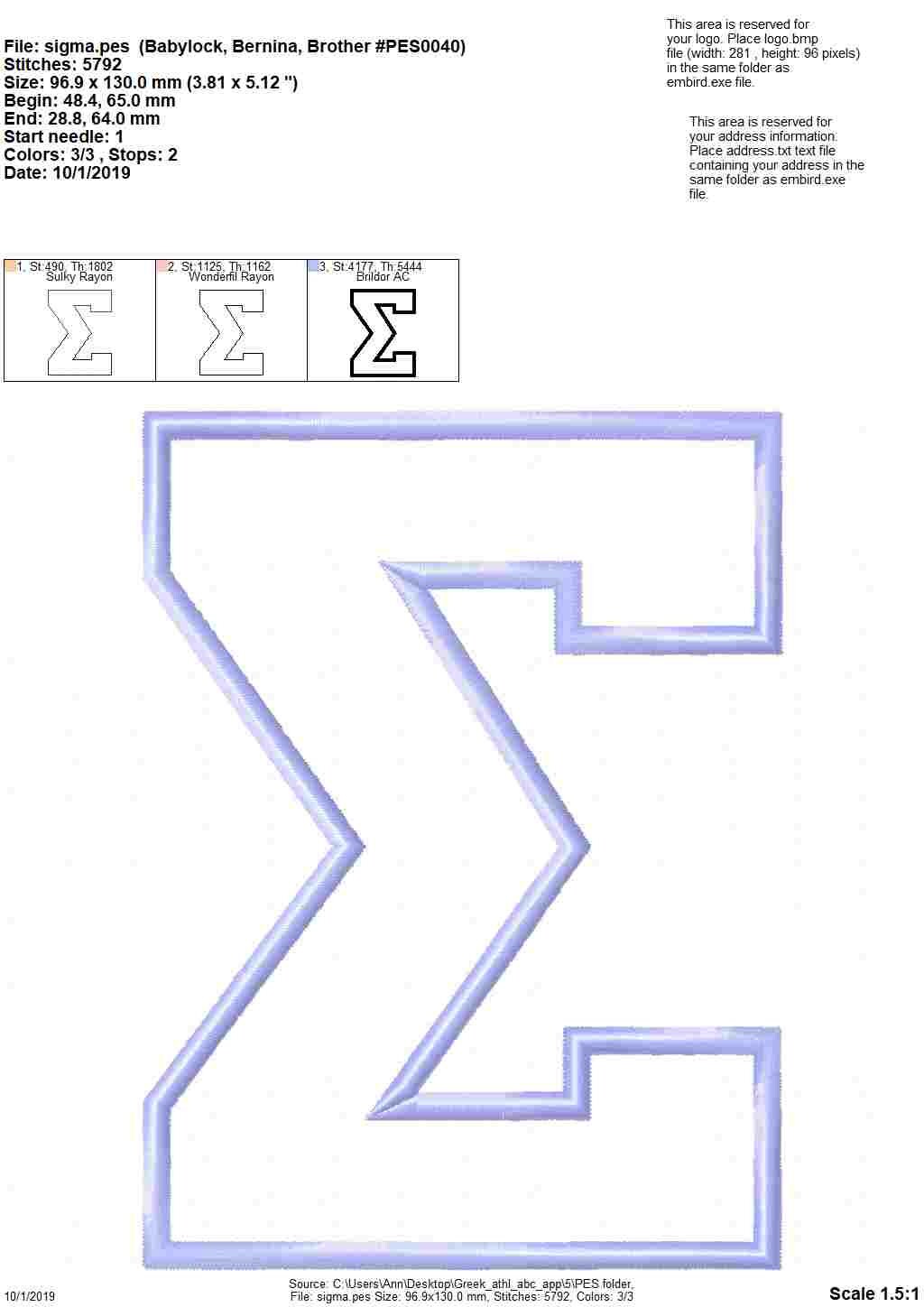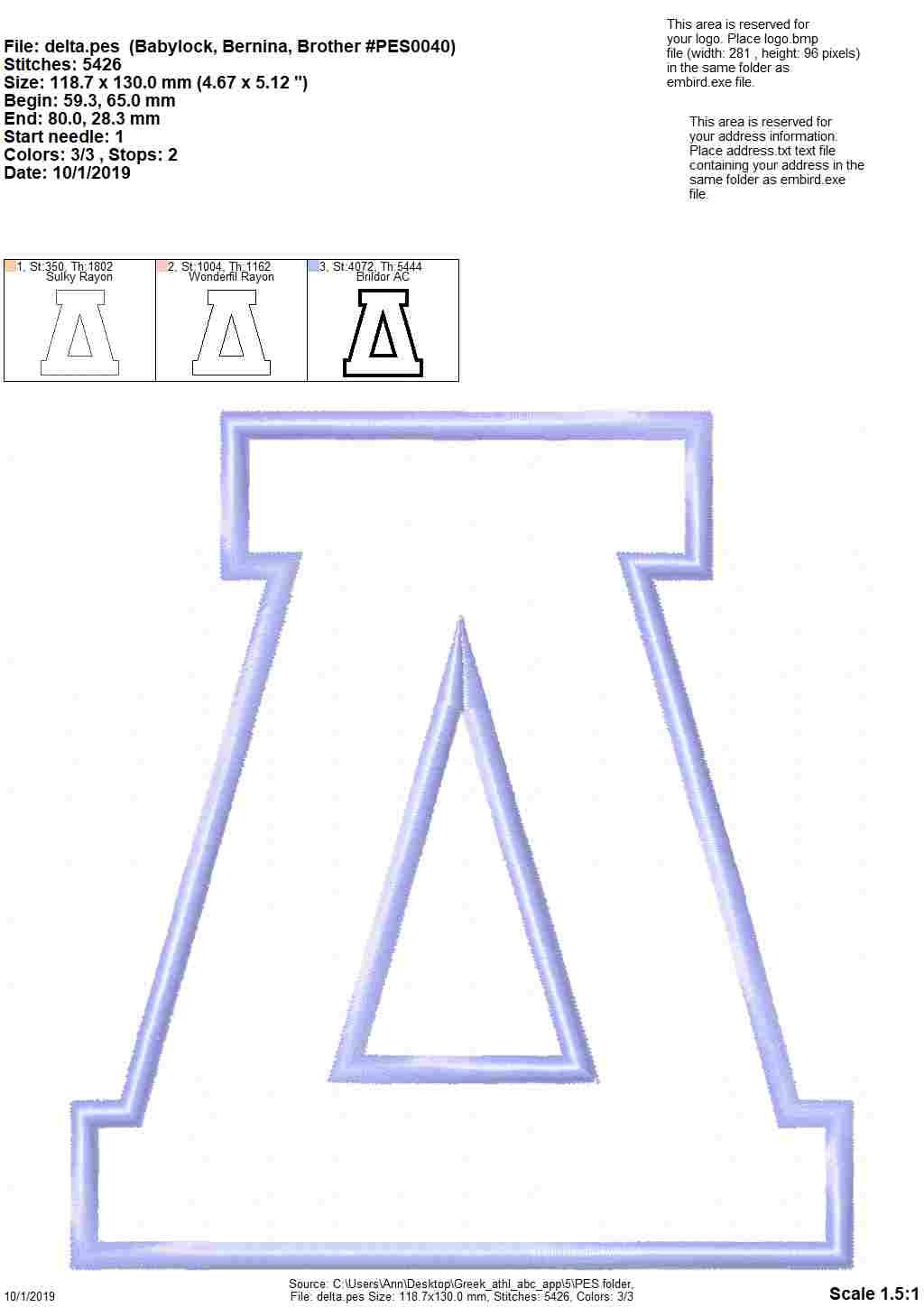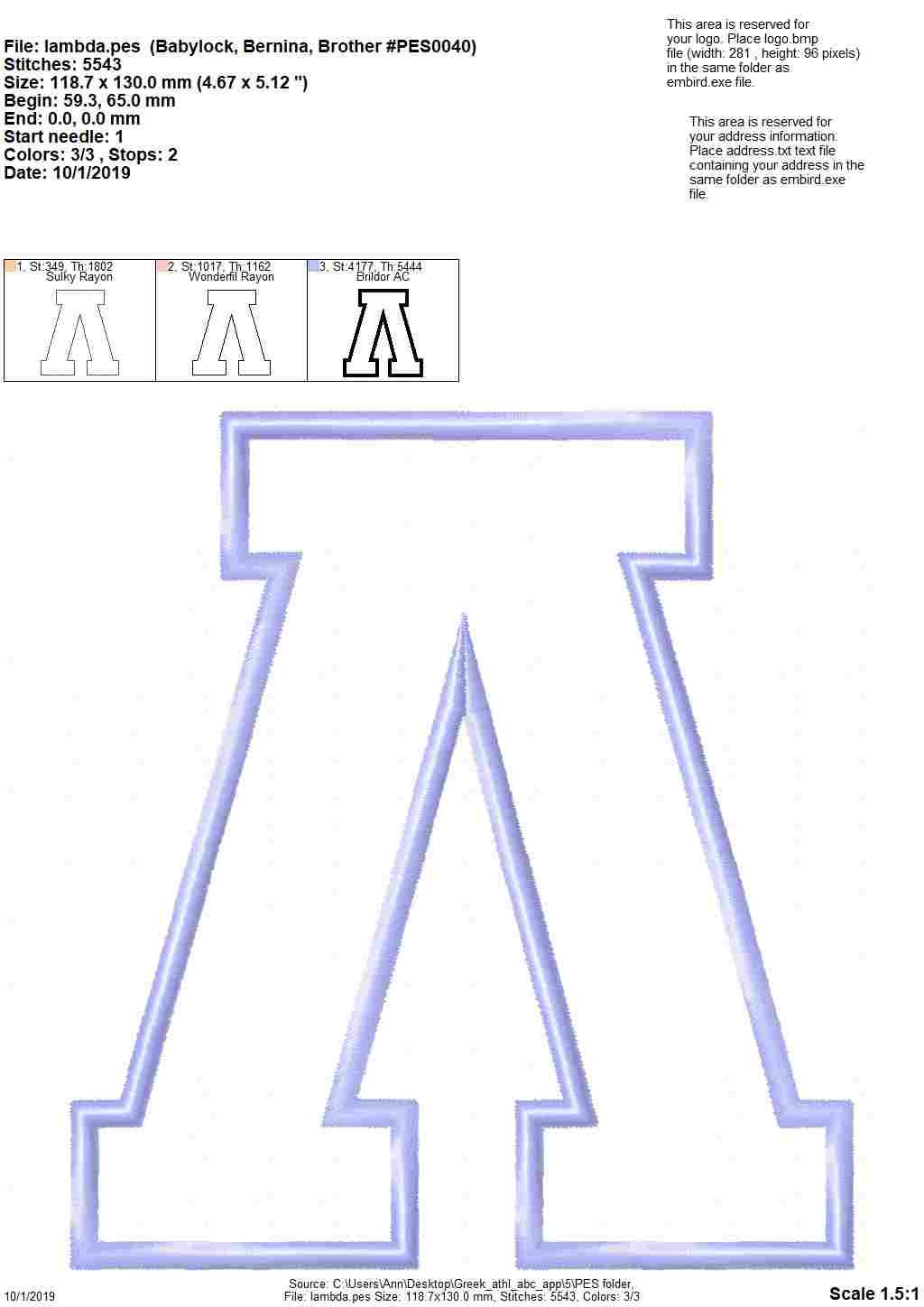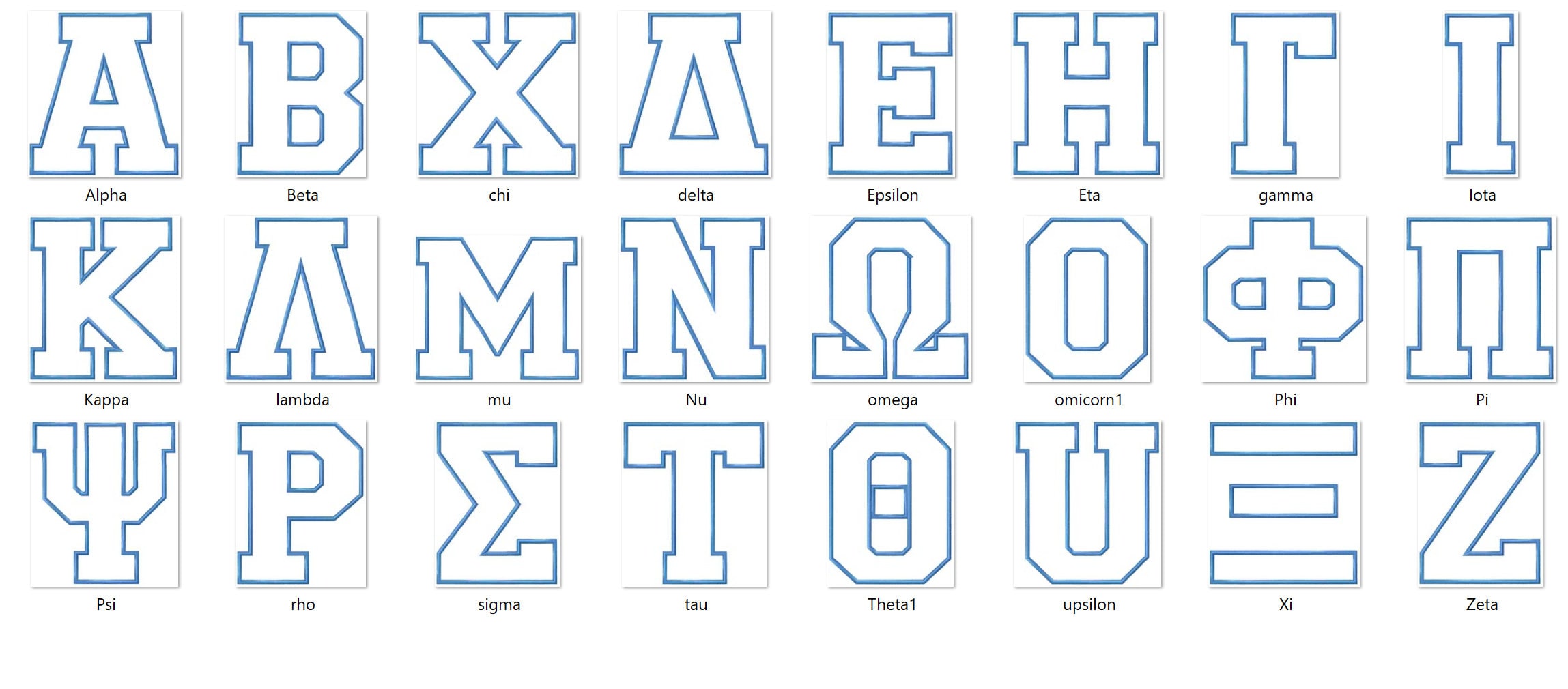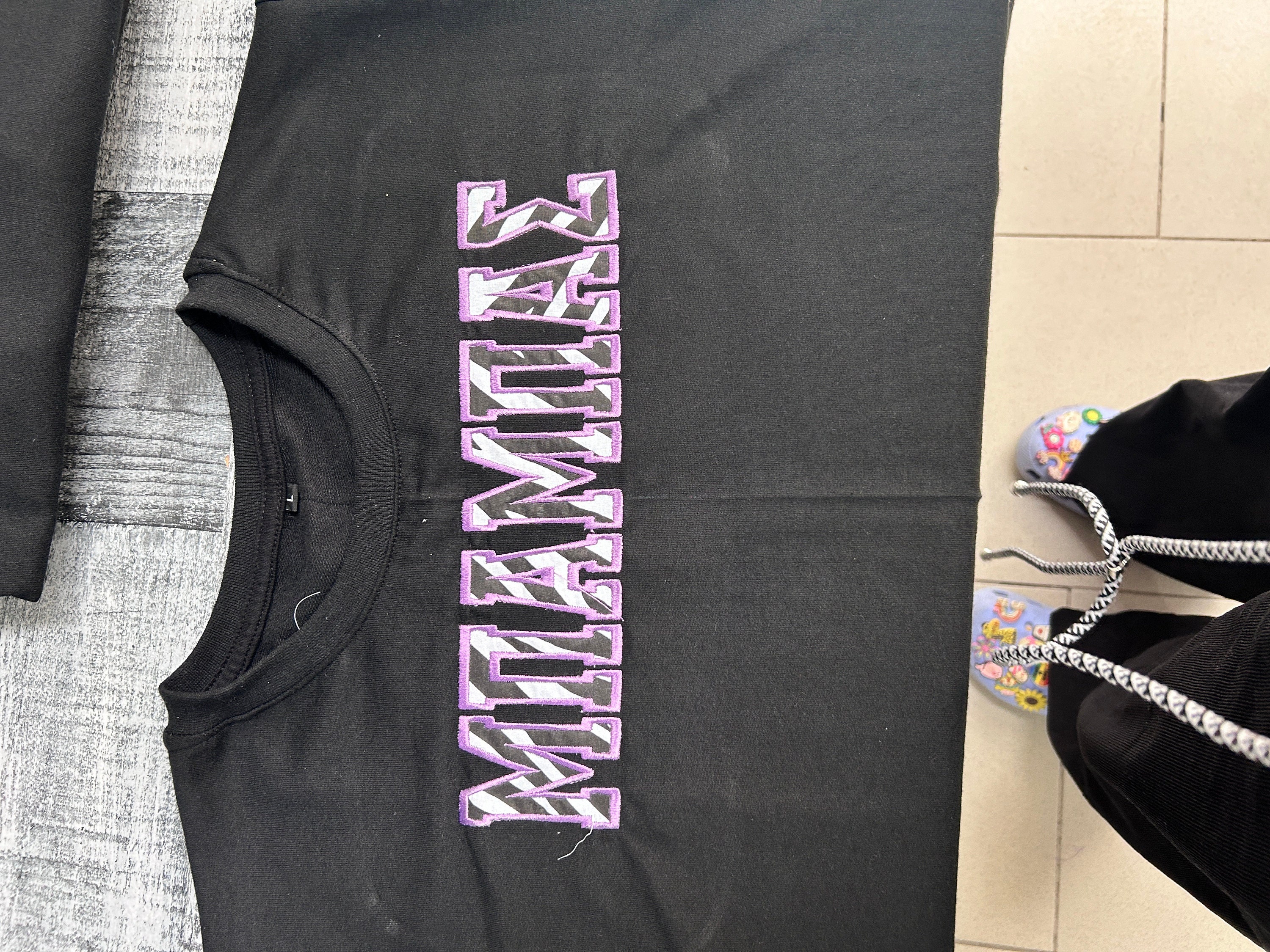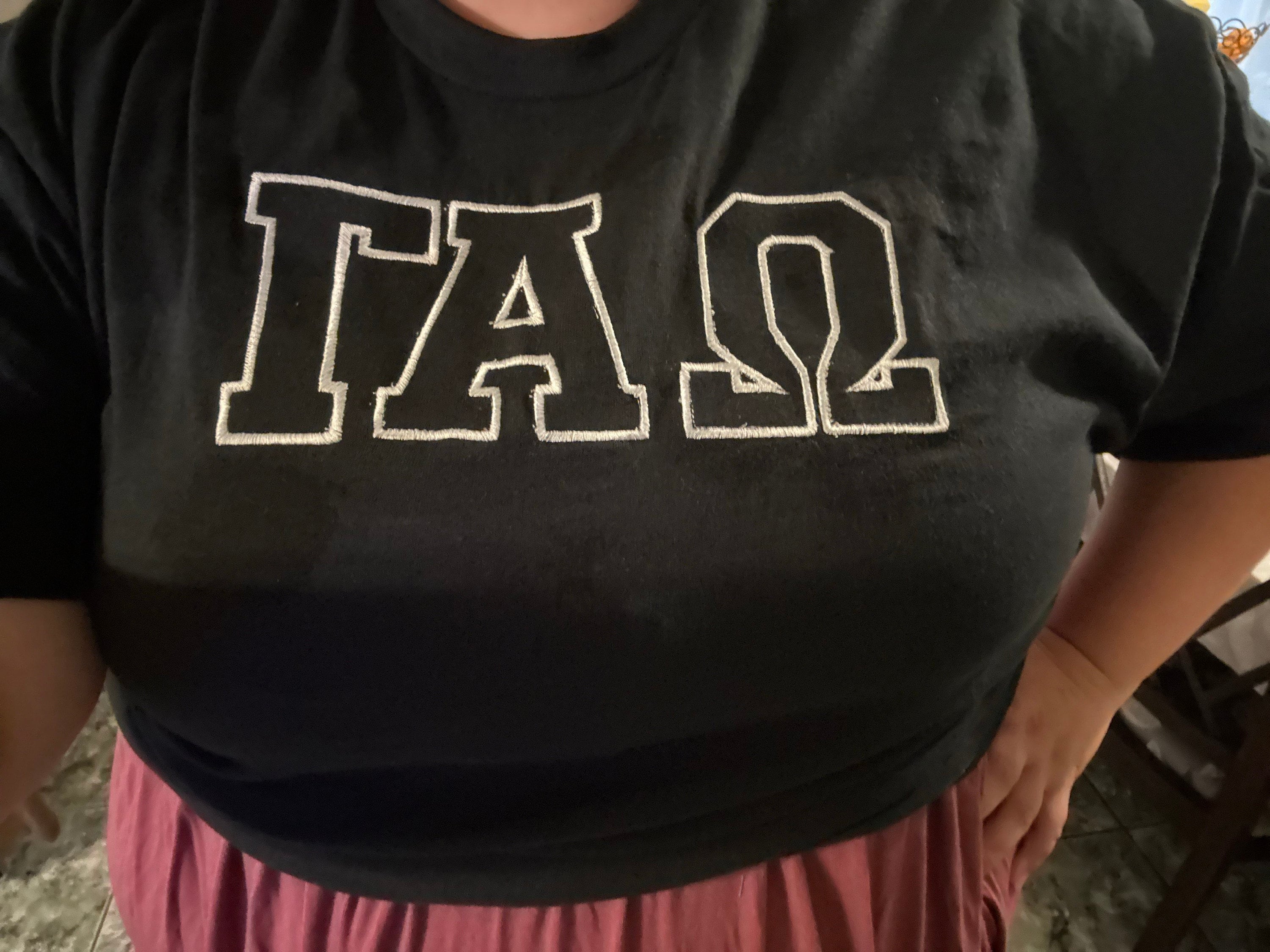
Sport block athletic varsity Greek font, alphabet, ABC, letters Greek font sororities, applique Font machine embroidery applique design
Applique letters
The font stitched out great!
For someone wanting to print 3 Letters for a Greek college club or whatever they might look ok but for typing a greek word the scale is very off. they are too short and wide. Trying to type a simple word like Μαμα or Μπαμπας is ugly Edit; after some resizing the end result is to my liking and I am gonna use it again
The digitizing is great! The stitch out was wonderful!